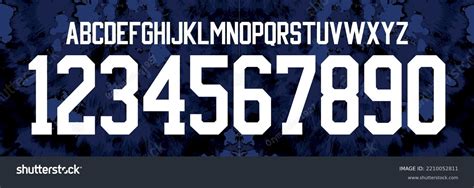
Score a Win with Stunning Football Number Font Downloads: Elevate Your Game with Eye-Catching Digits!
Are you tired of the same old boring football number fonts on your jerseys? Do you want to stand out on the field and have your team recognized for their unique style? Look no further!
Introducing the solution to your jersey woes – stunning football number font downloads. With a variety of bold and eye-catching fonts to choose from, you can elevate your game with digits that demand attention.
Did you know that uniform design can have a significant impact on team performance? In a study conducted by the Journal of Sports Sciences, athletes rated their performance as significantly better when wearing a uniform they believed to be of high quality and visually appealing.
So why settle for plain and uninspired number fonts? With custom football number fonts, you can not only improve your team's confidence but also intimidate your opponents with your striking and professional appearance.
But where can you find these amazing fonts? Look no further than the internet. There are countless websites offering football number font downloads, with options ranging from classic block style to edgy and modern designs.
Ready to step up your game with stunning football number fonts? With so many options available, there's no excuse not to try something new and exciting. Your team will thank you, and your opponents will fear you. Score a win on and off the field with custom football number fonts!
Football fans know the importance of the right number font. Whether you're a player, a coach, or a fan, having the right numbers on your jerseys can make all the difference. In this article, we'll look at some of the best football number fonts available for download, and talk about why they're worth considering.
The Importance of Number Fonts
There are several reasons why the right number fonts matter in football. For one thing, they need to be easy to read from a distance. That means they should be large, bold, and have good contrast with the background color. Additionally, the font should be visually appealing, as it adds to the overall look and feel of the uniform.
Selecting the Right Font
Selecting the right font can be tough, especially since there are so many options out there. However, some fonts are better suited for certain situations than others. For example, block-style fonts are a classic choice for football jerseys, as they're easy to read and have a timeless look. Script fonts, while more stylish, can be harder to read from a distance, so they may not be the best option for game day.
Top Football Number Fonts
There are many great football number fonts available for download online. Here are just a few of our top picks:
| Font Name | Description | Pros | Cons |
|---|---|---|---|
| Athletic | Classic block-style font | Easy to read, timeless look | May not be as visually interesting as other fonts |
| Varsity | Vintage-inspired block-style font | Unique look, eye-catching | May be too trendy for some |
| Hurricane | Weathered script font | Stylish, adds character to the uniform | May be hard to read from a distance |
| Impact | Bold sans serif font | Easy to read, modern look | May be too plain for some |
Customizing Your Font
If you're looking for something truly unique, consider customizing your font. Many websites allow you to create your own font by uploading a design or selecting from their templates. This allows you to create a font that's tailor-made for your team's style and branding.
Consider Your Branding
Speaking of branding, it's important to think about how your font fits into your team's overall image. If you have specific colors or logos that you use, your font should complement them. Additionally, if you're looking to create a cohesive look across all of your team's branding (such as social media graphics or merchandise), using the same font can be a smart choice.
When it comes to football number fonts, there are a lot of options to choose from. However, by considering your team's branding, the visibility and readability of the font, and what type of look you're going for, you can select a font that will take your game to the next level with eye-catching digits.
Opinion
In conclusion, choosing the right font can make a significant impact on your team's appearance and presence on the field. By analyzing the various fonts available, specifically considering their distinguishability and their suitability for your team, you will be able to find that perfect fit.
- Many football number fonts can be customized to suit your team's specific colors, style, and branding. Some font designers even offer custom font creation services to help you create a truly unique look for your team.